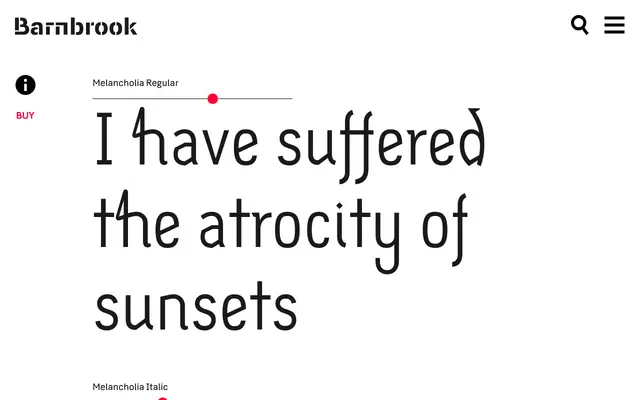
Melancholia
A calligraphically informed sans-serif with true italics drawn from old-style serif models and swash alternates that introduce emotional warmth into a typically austere classification.
Where most sans-serifs lean on geometric or functional principles, Melancholia draws on calligraphic letterforms to bring a quality of wistfulness to the design. Its true italics take their cue from old-style serif italics in the tradition of Claude Garamond, rather than simply slanting the roman. Stylistic alternates and calligraphic swash characters extend the expressive range further, making it well suited to editorial and literary work where tone matters as much as legibility.
A sans-serif with calligraphic roots and old-style italic influences, placing it firmly in the humanist sans tradition where stroke contrast and hand-drawn qualities inform the letterforms.